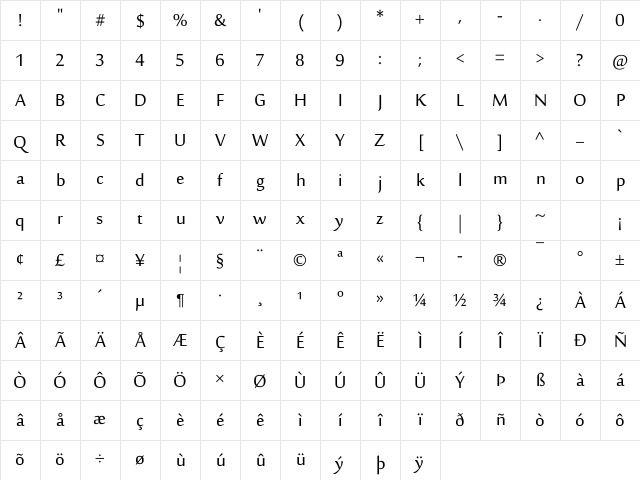
Complete Majalla UI Regular glyph index. Displaying only characters natively supported by Majalla UI Regular font.
Majalla UI is a composed and adaptable typeface that performs quietly and consistently across a wide range of design contexts.
Pro Tip: Use Majalla UI in both headline and body roles to test its range before committing to a single application.